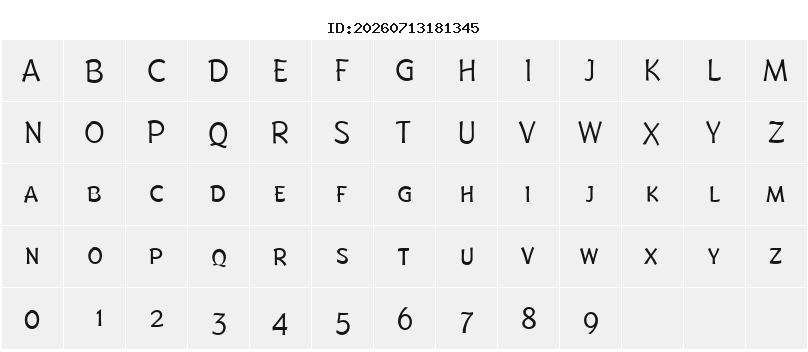
BadgerLightExpert Preview
• Font Name: BadgerLightExpert
• Font Style: Roman
• Full Font Name: BadgerLightExpert
About BadgerLightExpert.ttf
BadgerLightExpert.ttf is a modern, elegant sans-serif font designed for ultimate readability and visual harmony. Perfect for branding, headlines, web design, and print materials.